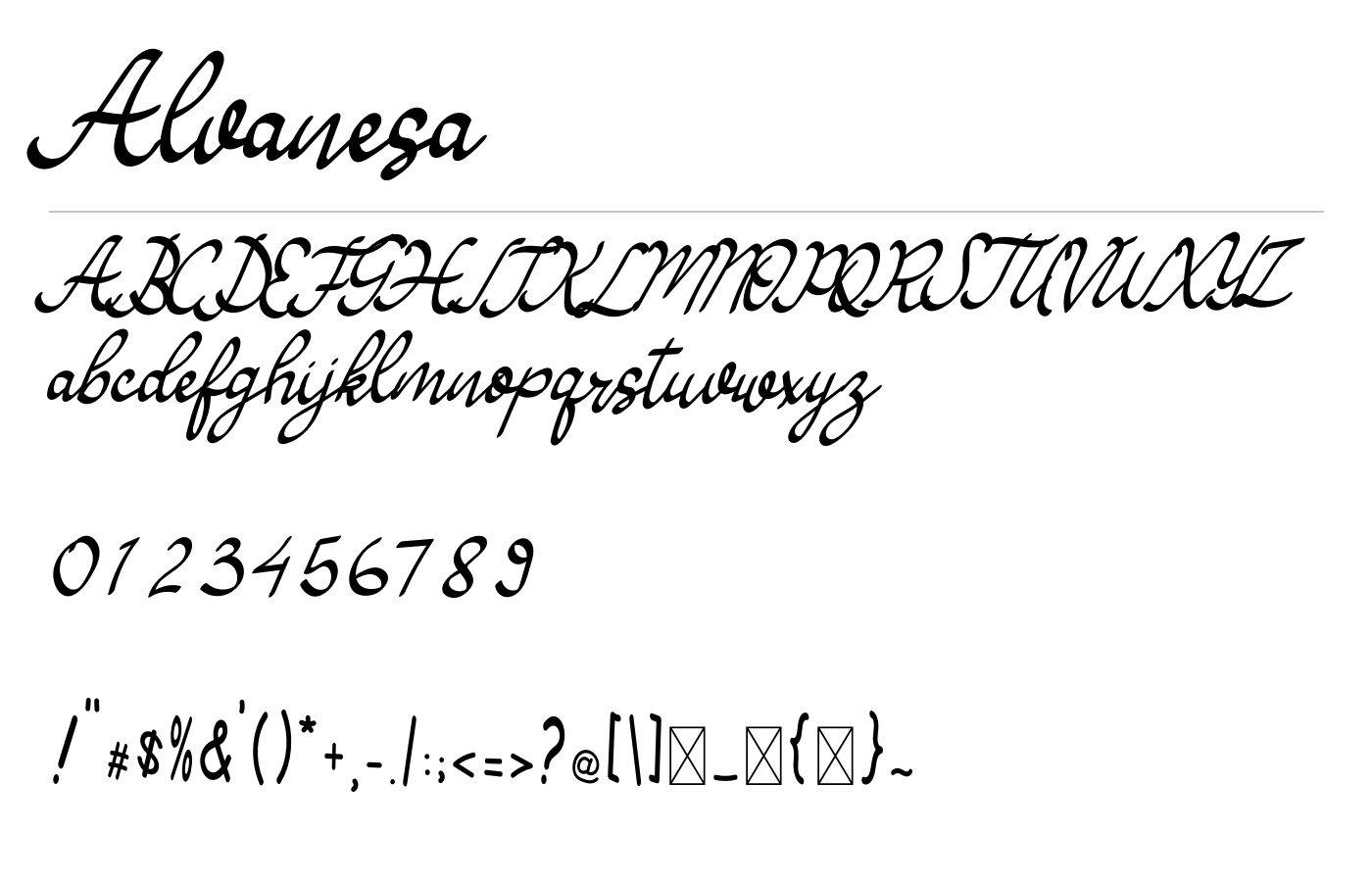
Alvanesa is an elegant script font with a flowing, handwritten style that offers smooth, connected letterforms and a sophisticated, personal touch. Its moderately high contrast and slender strokes give it a refined and graceful look, making it ideal for invitations, branding, and editorial designs that seek a classic yet approachable feel. This font works best in expressive headlines and decorative uses where a sense of charm and elegance is desired.
Alvanesa Font
About Alvanesa Font